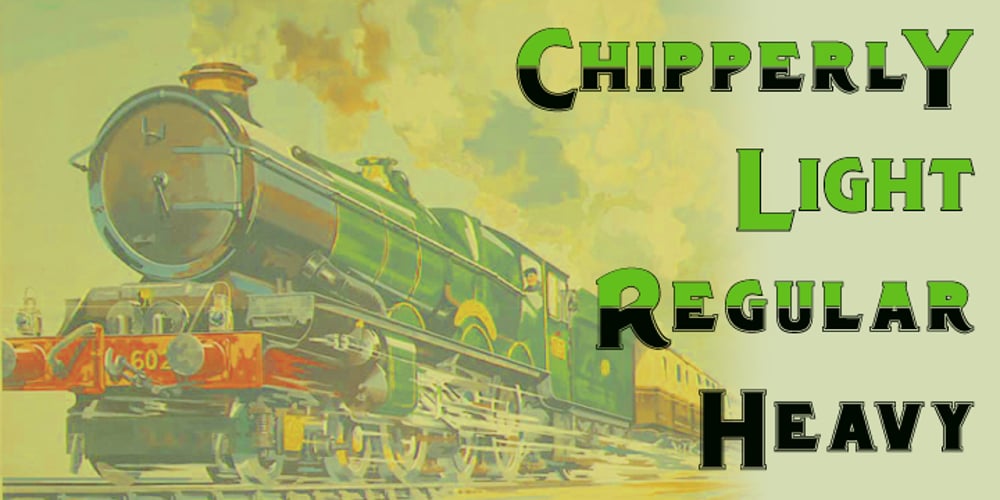
Chipperly Font Family was designed by published by Greater Albion Typefounders. Chipperly contains 3 styles and family package options. Chipperly is a brand new face inspired by the art of the Edwardian poster, especially travel posters. It’s good for clear ad legible headings which need a gentle and unobtrusive period touch, and is the latest is Greater Albion’s line of faces to explore the ‘small capitals’ idea. In its regular weight, Chipperly’s glyphs are semi-shaded within an outer outline giving a distinctive look, while the Heavy weight maintains the separate outline but is completely filled. The Light form is an outline alone. All forms unite period elegance with the modern need for clear readiility.